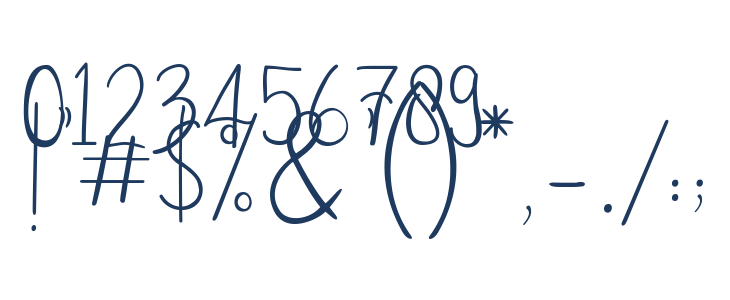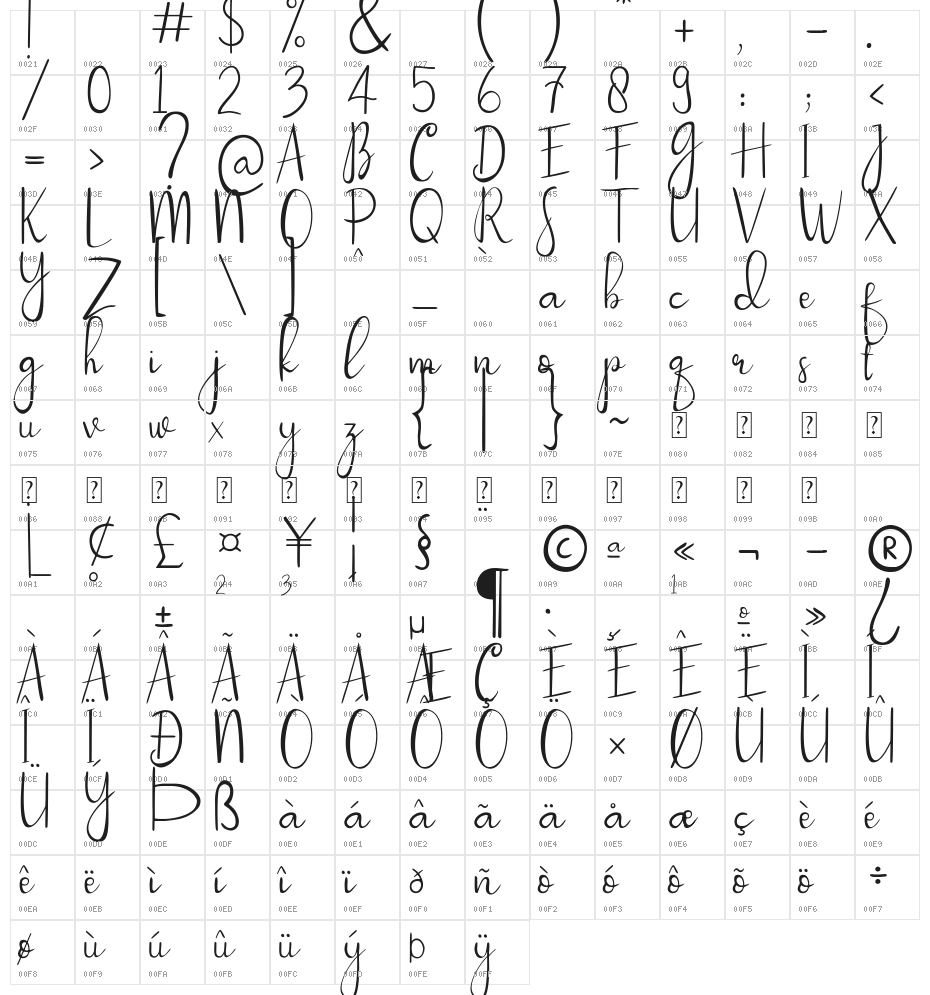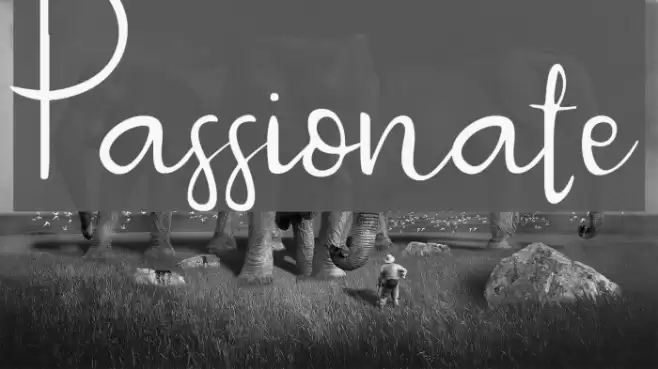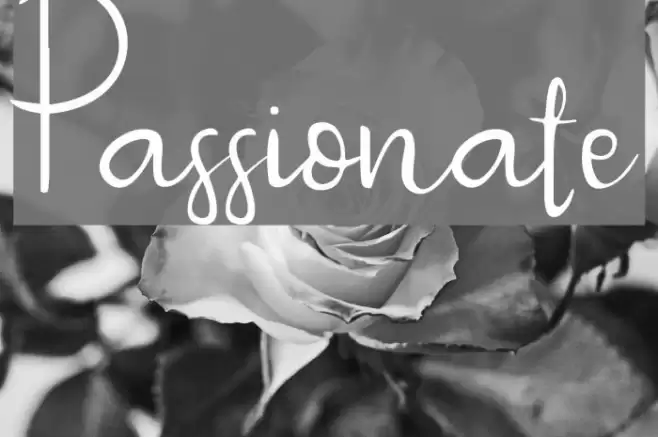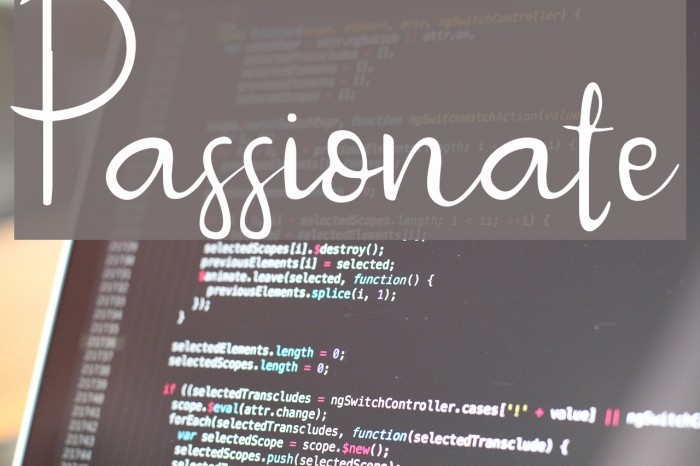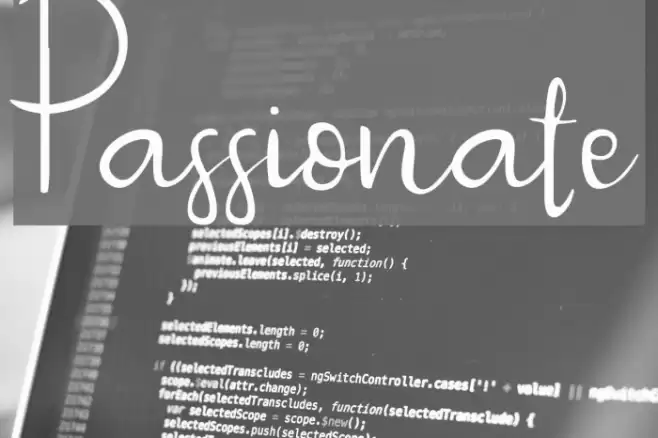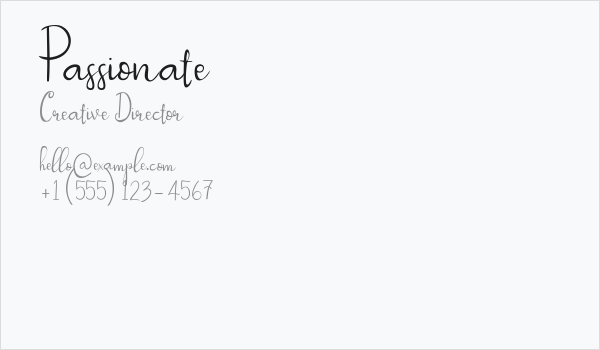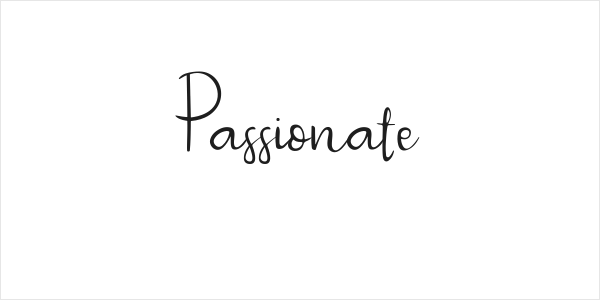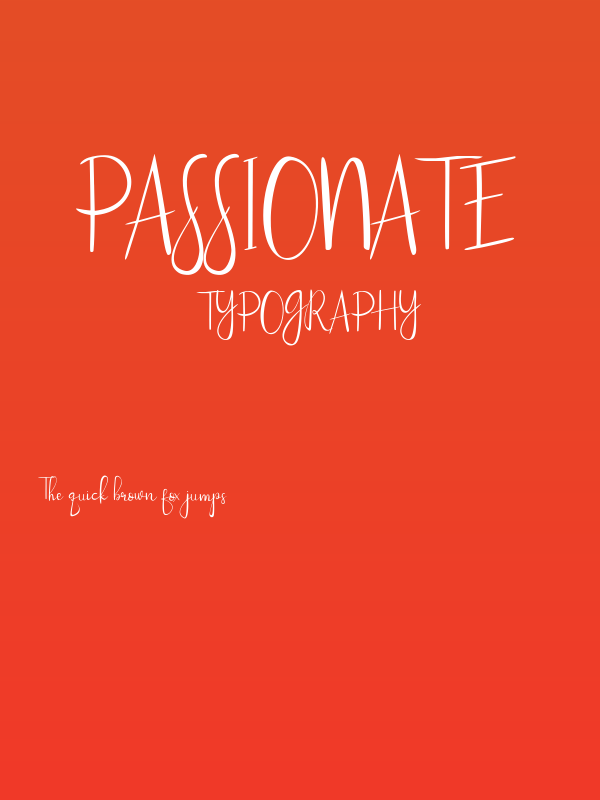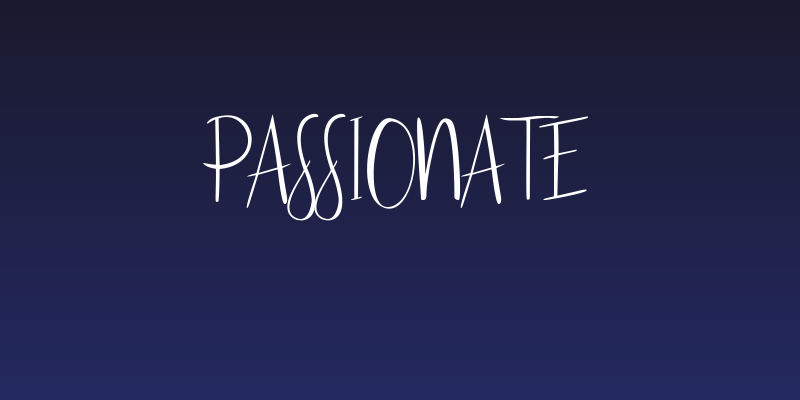
Passionate Font
Passionate Description
This font features a lively and energetic script style with a handwritten appearance. The uppercase letters are tall and slender, with a slight slant that adds a dynamic feel. The lowercase letters are more fluid, with smooth, flowing curves that create a sense of movement. The numbers are consistent with the overall style, maintaining the same playful and informal look. Special characters are integrated seamlessly, adding to the font's versatility. The strokes are thin, with a medium contrast that enhances readability while retaining the font's elegant and whimsical character.